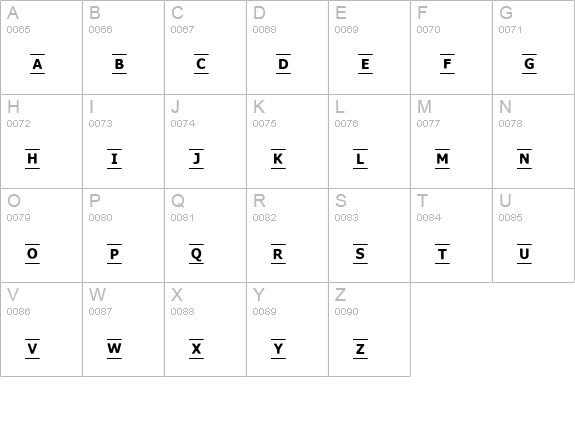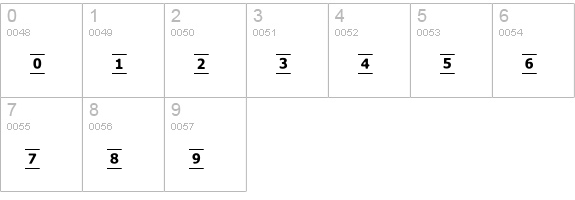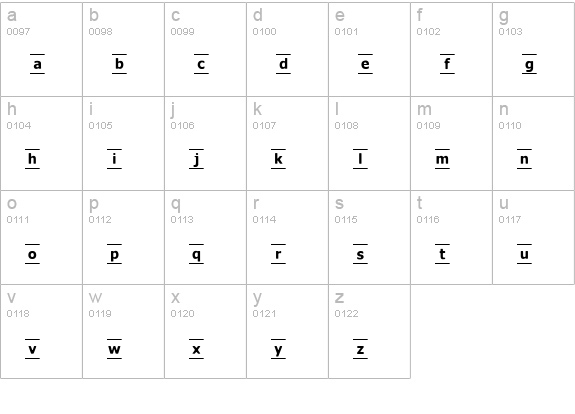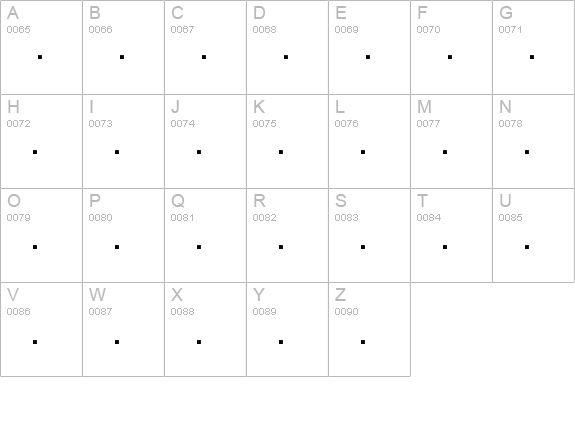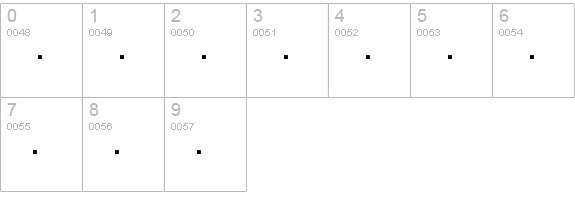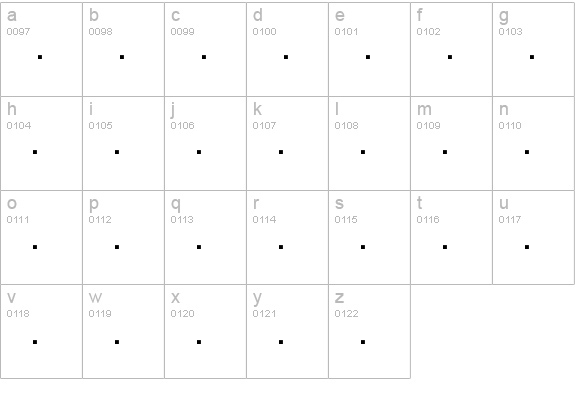
Dachsfont Font Details
Dachsfont is a stunningly beautiful and versatile font that will bring a touch of elegance and sophistication to any design project. Its sleek and modern lines combined with its timeless appeal make it the perfect choice for everything from logos and branding to invitations and posters. With its wide range of weights and styles, Dachsfont offers endless possibilities for creative expression. Whether you want to create a bold and impactful headline or a delicate and refined body text, this font has got you covered. One of the best things about Dachsfont is that it is free! Yes, you read that right. This amazing font is freely available to download at FontsMarket.com. So you can enjoy all the benefits of this high-quality font without having to spend a dime. So why wait? Start exploring the endless design possibilities that Dachsfont offers and take your projects to the next level. Download this incredible font now and let your creativity soar.